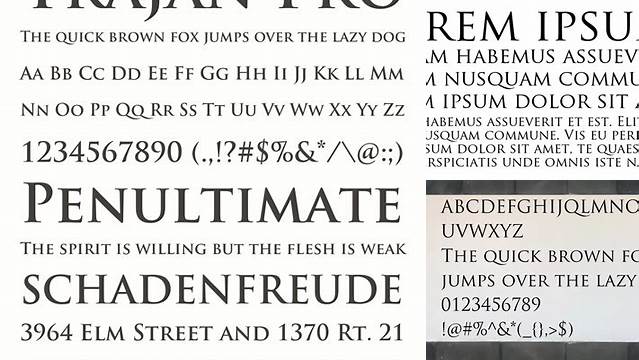
Are you in search of a classic and elegant font that exudes sophistication and timelessness? Look no further, guys, than Trajan Pro! This iconic typeface, inspired by the Roman inscriptions on the Trajan column, has graced countless designs, from movie posters to corporate logos. Its versatility and refined aesthetic make it a perennial favorite among designers. In this comprehensive guide, we'll delve into the world of Trajan Pro, exploring its history, characteristics, and, most importantly, where to find it for free.
What is Trajan Pro?
Trajan Pro is a serif typeface designed by Carol Twombly in 1989 for Adobe. It's based on the letterforms found on the Trajan Column in Rome, a monument erected in 113 AD to honor the Roman Emperor Trajan. These inscriptions are considered some of the finest examples of Roman monumental capitals, and Twombly masterfully captured their essence in her digital typeface.
The font is characterized by its clean lines, strong serifs, and elegant proportions. Its uppercase letters are particularly striking, conveying a sense of authority and grandeur. While Trajan Pro only includes uppercase letters, it's often used in conjunction with a complementary lowercase typeface to create a more balanced and readable design. The beauty of Trajan Pro lies in its historical roots and its ability to evoke a sense of classicism and sophistication. Its strong serifs and clean lines create a visual impact that is both powerful and refined. The typeface's uppercase-only design contributes to its formal appearance, making it ideal for headings, titles, and other display purposes. When used effectively, Trajan Pro can elevate any design, adding a touch of elegance and timeless appeal. However, due to its uppercase nature, it's essential to pair it with a suitable lowercase typeface for body text to ensure readability and visual harmony. The typeface's versatility allows it to be used in a variety of design contexts, from branding and advertising to editorial design and web design. Its historical significance and visual appeal make it a popular choice for projects that aim to convey a sense of tradition, authority, and sophistication. It is important to remember that while Trajan Pro is a visually stunning typeface, it is not always the most practical choice for every design project. Its uppercase-only design and strong personality make it more suitable for specific purposes, such as headings, titles, and logos. When used in these contexts, Trajan Pro can create a powerful and memorable visual impact, but it may not be the best option for long passages of text. To achieve the best results, it's crucial to carefully consider the overall design and the message you want to convey before using Trajan Pro. Pairing it with a complementary lowercase typeface and using it strategically can help you harness its unique qualities and create a visually appealing and effective design.
Why is Trajan Pro So Popular?
The popularity of Trajan Pro stems from several factors. First and foremost, its historical inspiration lends it an air of authenticity and prestige. The Roman inscriptions that served as its basis are iconic examples of letterform design, and Trajan Pro successfully translates their timeless beauty into a digital format. The typeface's widespread use in movie posters has further cemented its fame. Countless blockbusters, from Titanic to Gladiator, have featured Trajan Pro in their promotional materials, associating the font with cinematic grandeur and epic storytelling. This exposure has made it instantly recognizable and highly sought after by designers and the public alike. Furthermore, Trajan Pro's versatility contributes to its appeal. While it excels in formal and sophisticated designs, it can also be adapted to a variety of other contexts. Its clean lines and strong presence make it suitable for corporate branding, editorial design, and even web design. Designers appreciate its ability to convey a sense of authority and elegance, making it a reliable choice for projects that require a touch of class. The font's impact is undeniable, as its use in high-profile projects has further solidified its reputation as a premium typeface. Its unique ability to evoke a sense of history and sophistication makes it a favorite among designers seeking to add a touch of elegance to their work. The typeface's versatility also plays a crucial role in its enduring popularity. While it is particularly well-suited for formal and upscale designs, it can be effectively used in a variety of other applications. From logos and branding materials to editorial layouts and websites, Trajan Pro can lend a sense of refinement and authority to any project. The font's clean lines and strong serifs ensure that it remains legible and impactful across a range of media, making it a reliable choice for designers seeking a typeface that can deliver consistent results. However, designers must also be mindful of the potential drawbacks of overusing a popular font like Trajan Pro. Its widespread use can sometimes lead to a sense of visual fatigue, and it is essential to use it judiciously and creatively to avoid clichés. By exploring different weights, styles, and pairings with other typefaces, designers can leverage the unique qualities of Trajan Pro while maintaining a fresh and original design aesthetic. Ultimately, the enduring popularity of Trajan Pro is a testament to its timeless beauty and versatility. Its historical roots, cinematic associations, and clean design have made it a favorite among designers and a symbol of elegance and sophistication.